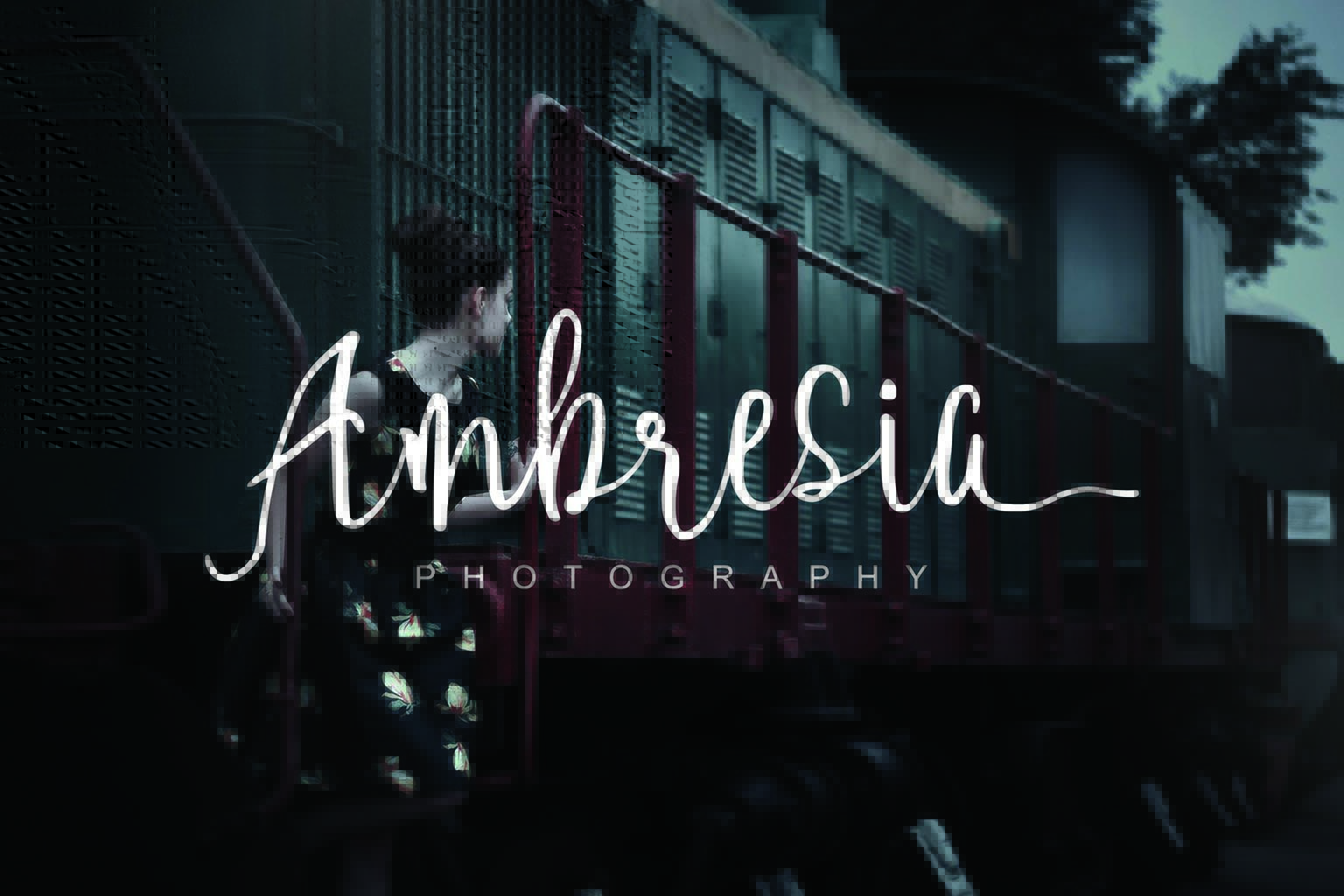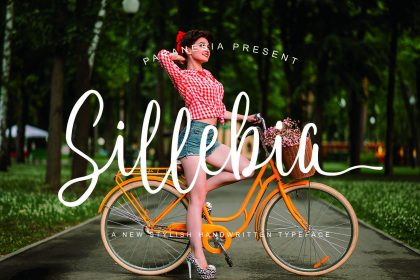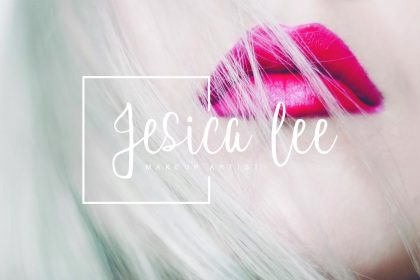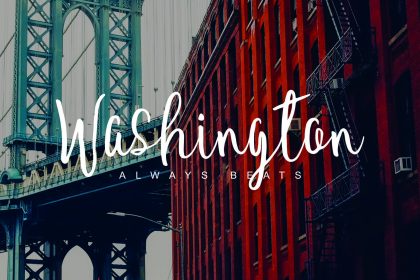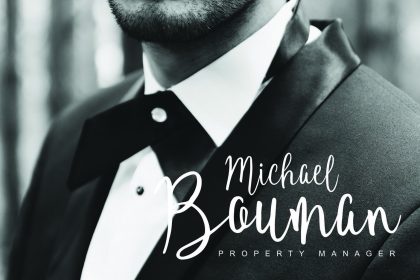
Sillebia Script Font
Introducing the new Sillebia Font!
Sillebia is modern script that perfect for signature, photography, megazine, title book cover, logos, cloting, card, branding and any hand-lettered needs. It is so beautiful and classy.